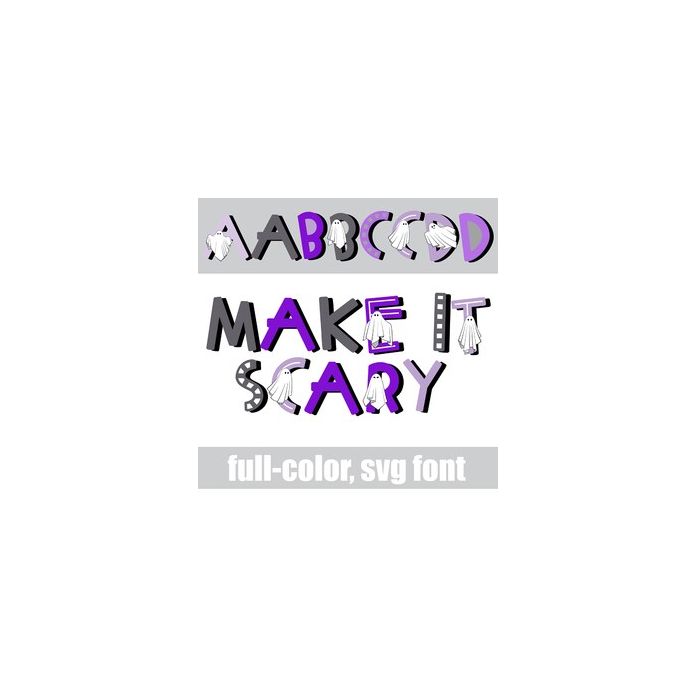
This full-color font features purple and gray lettering and ghosts. There is an alt case w/ additional colors you can access through your system or Silhouette's glyph map.